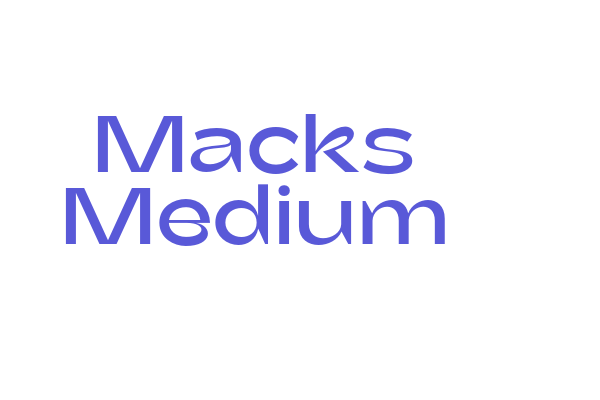
Macks Medium is a sleek and versatile sans-serif font designed by Sarid Ezra. Part of the Macks font family, it offers a clean and modern look with a medium weight that strikes the perfect balance between boldness and sophistication. Ideal for various basic design projects, Macks Medium is a reliable choice for creating professional and visually appealing content.
Font Name: Macks Medium
Designer: Sarid Ezra
Font Family: Macks Med
Weight: Medium